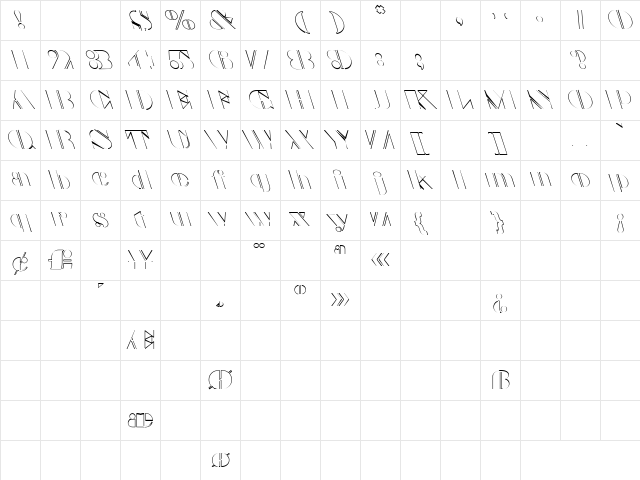
Customs 2 Regular Free Font
Customs 2 Regular
Complete Customs 2 Regular glyph index. Displaying only characters natively supported by Customs 2 Regular font.
Design Context for Customs 2
Customs 2 is a composed and adaptable typeface that performs quietly and consistently across a wide range of design contexts.